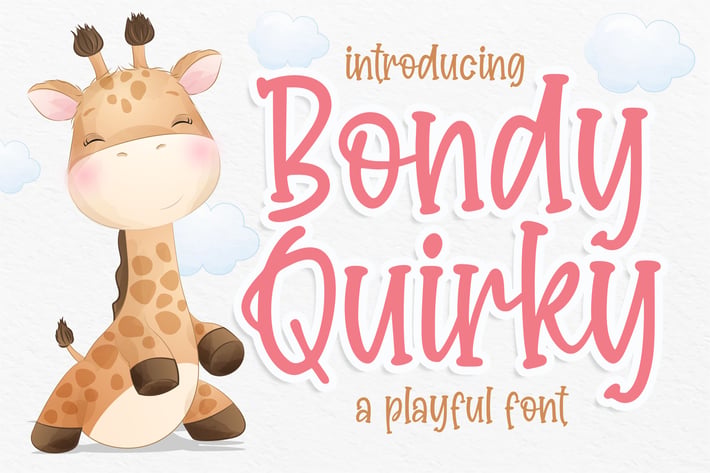
Bondy Quirky Font
Introducing of our new product the name is Bondy Quirky Font. Bondy Quirky inspired by Quirky Handwritten style this font is a fun theme very good for display, tshirt design, craft, quote sign, logotype and etc